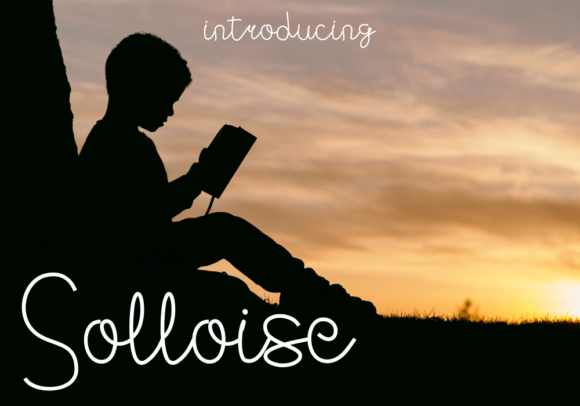
In a world overflowing with digital noise, visual appeal has become an indispensable tool to capture attention and create lasting impressions. In the realm of online marketing and branding, typography takes center stage, serving as the silent yet powerful force that propels your message to unprecedented heights. Amidst a plethora of font options, Solloise Font emerges as a resplendent script font family, meticulously crafted to resonate with your audience on a profound level.
Solloise Font is a symphony of elegance and simplicity, a testament to the enduring power of classic penmanship. Each letterform is a testament to the beauty of imperfection, exhibiting slight variations and flourishes that evoke a sense of authenticity and charm. The result is a captivating font that seamlessly blends the charm of handwritten calligraphy with the precision of digital design.
As a designer, you understand the importance of legibility and readability. Solloise Font excels in this regard, ensuring effortless absorption of your content, whether it be a heartfelt story or a compelling call to action. Its well-balanced proportions and carefully crafted kerning create a harmonious reading experience that invites your audience to delve deeper into your brand's narrative.
But Solloise Font is more than just a visually appealing font. It's a versatile workhorse that effortlessly adapts to a myriad of design applications. Whether you're crafting captivating social media posts, designing eye-catching brochures, or creating stunning web graphics, Solloise Font seamlessly complements your creative vision. Its ability to effortlessly flow from one style to another makes it a must-have tool for any designer seeking to elevate their work to new heights.
To further enhance your design possibilities, Solloise Font comes fully equipped with a comprehensive selection of stylistic alternates, ligatures, and swashes. These typographic treasures grant you the freedom to explore endless creative possibilities, adding depth, texture, and visual interest to your designs. Unleash your inner artist and experiment with a myriad of combinations, transforming ordinary text into extraordinary expressions of visual delight.
Solloise Font isn't merely a font; it's an extension of your brand's personality, a powerful tool that breathes life into your creative vision. With its captivating script style, versatile nature, and wealth of customization options, Solloise Font empowers you to craft designs that resonate with your audience, leaving an enduring impression that lingers long after the page is closed.